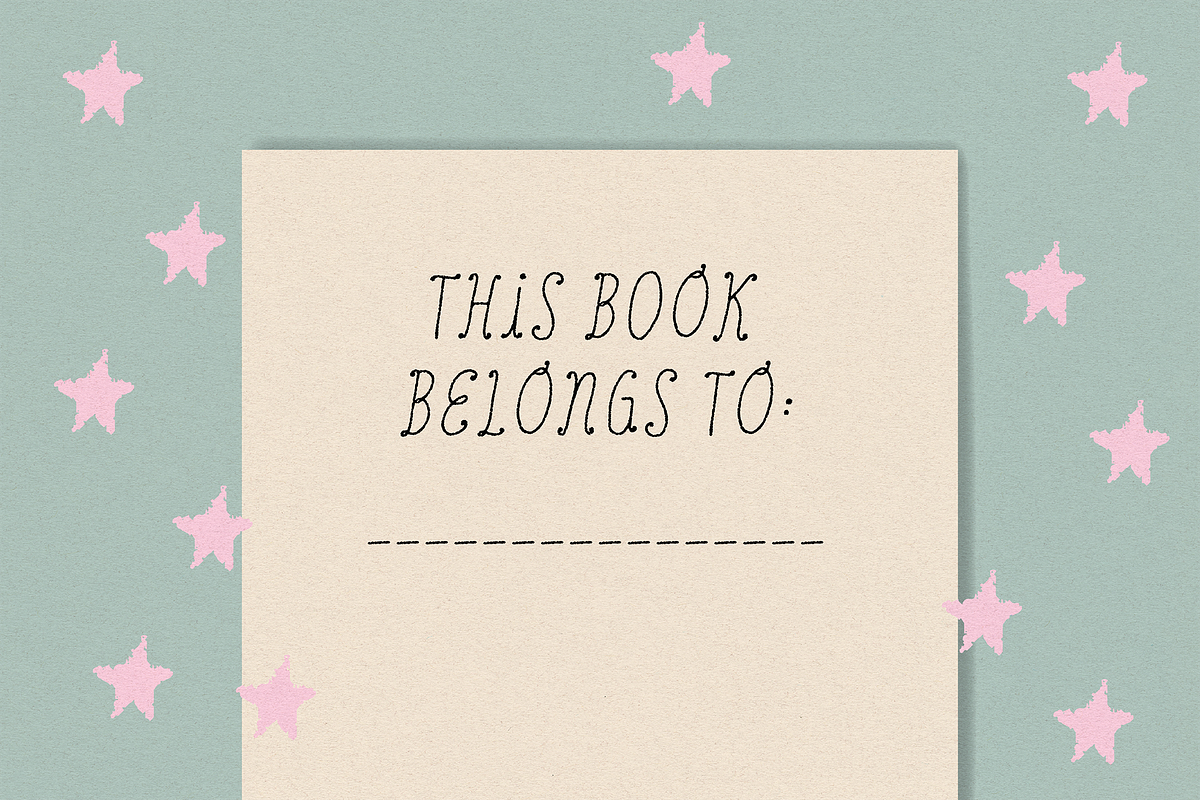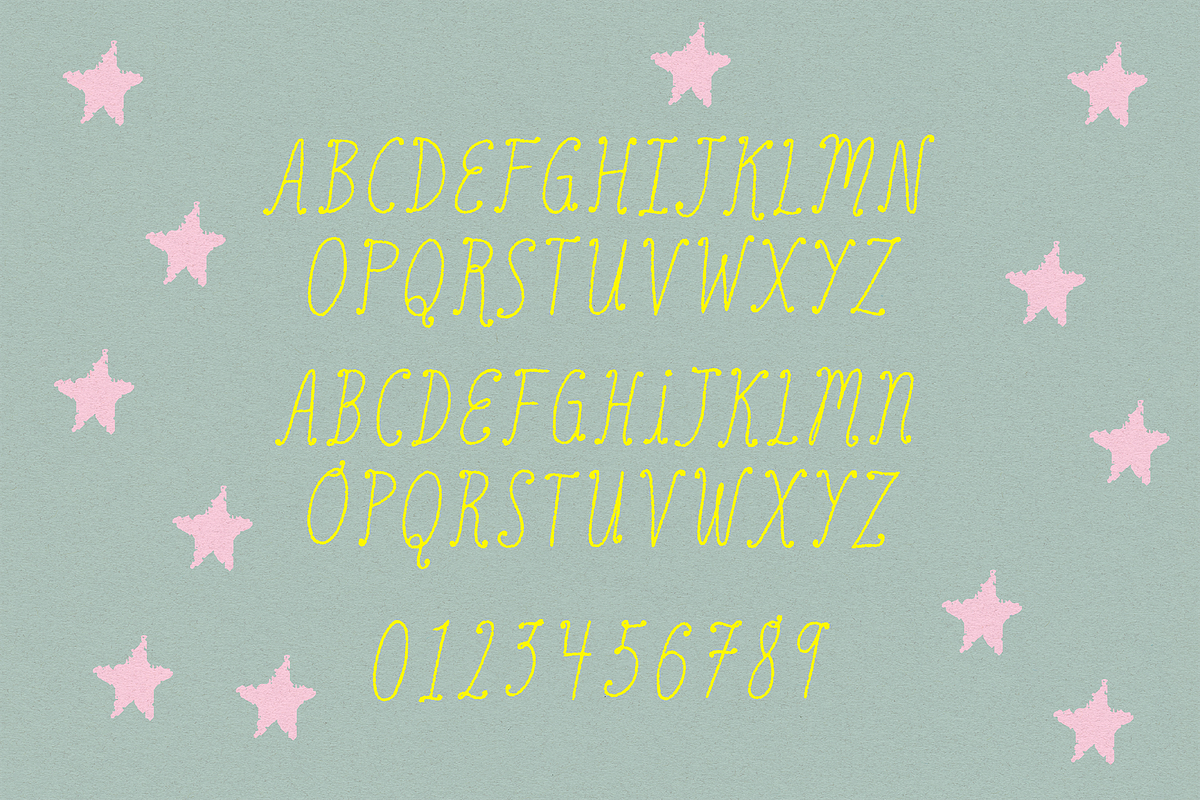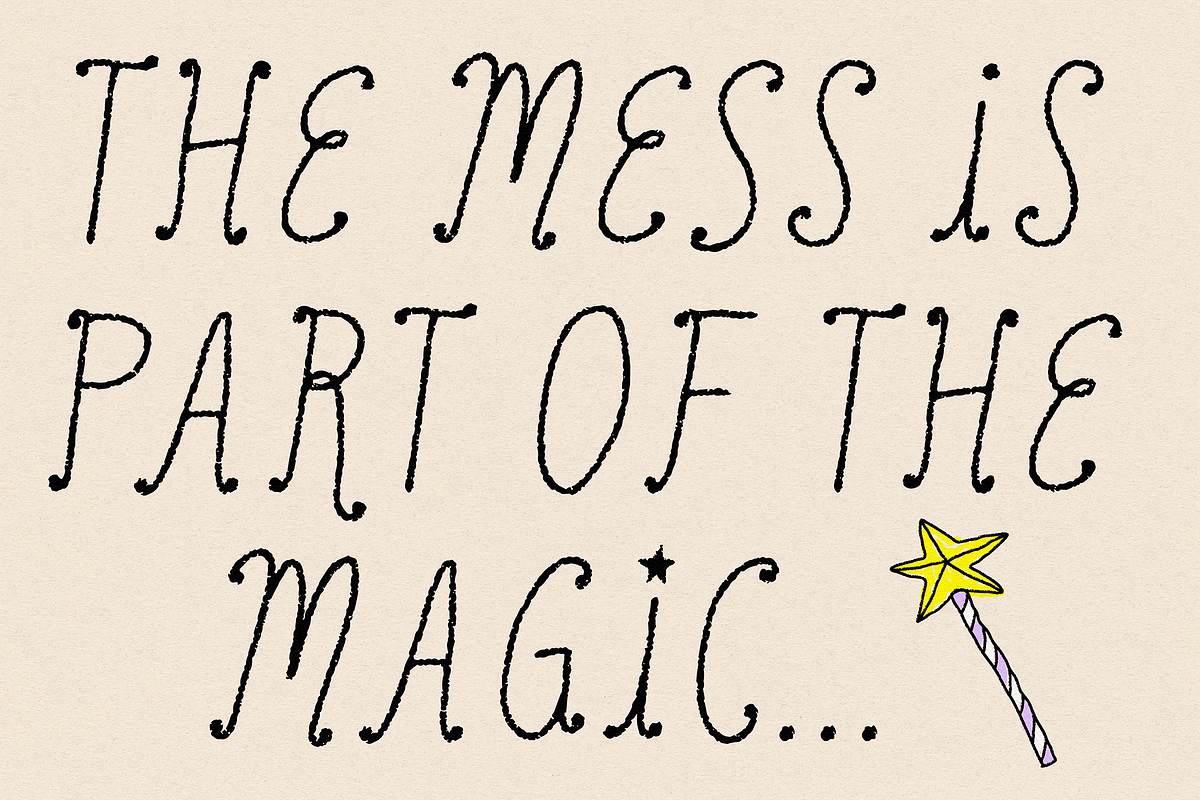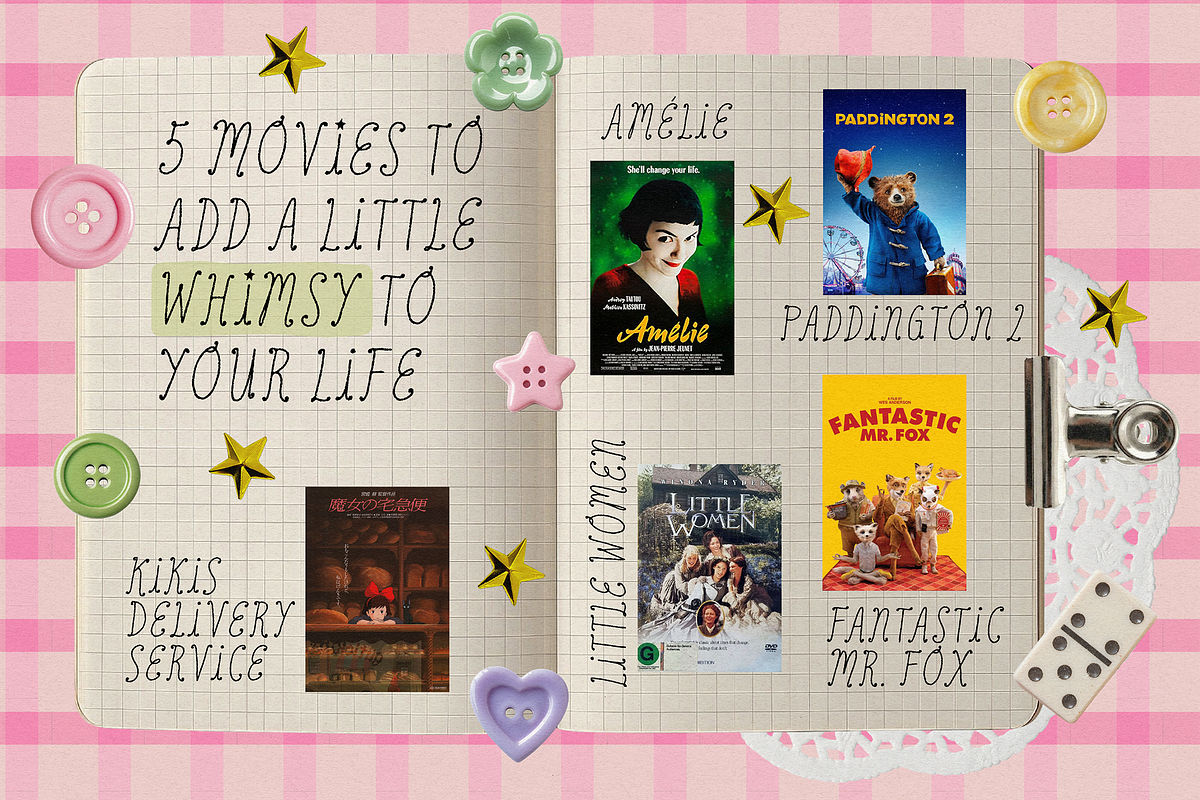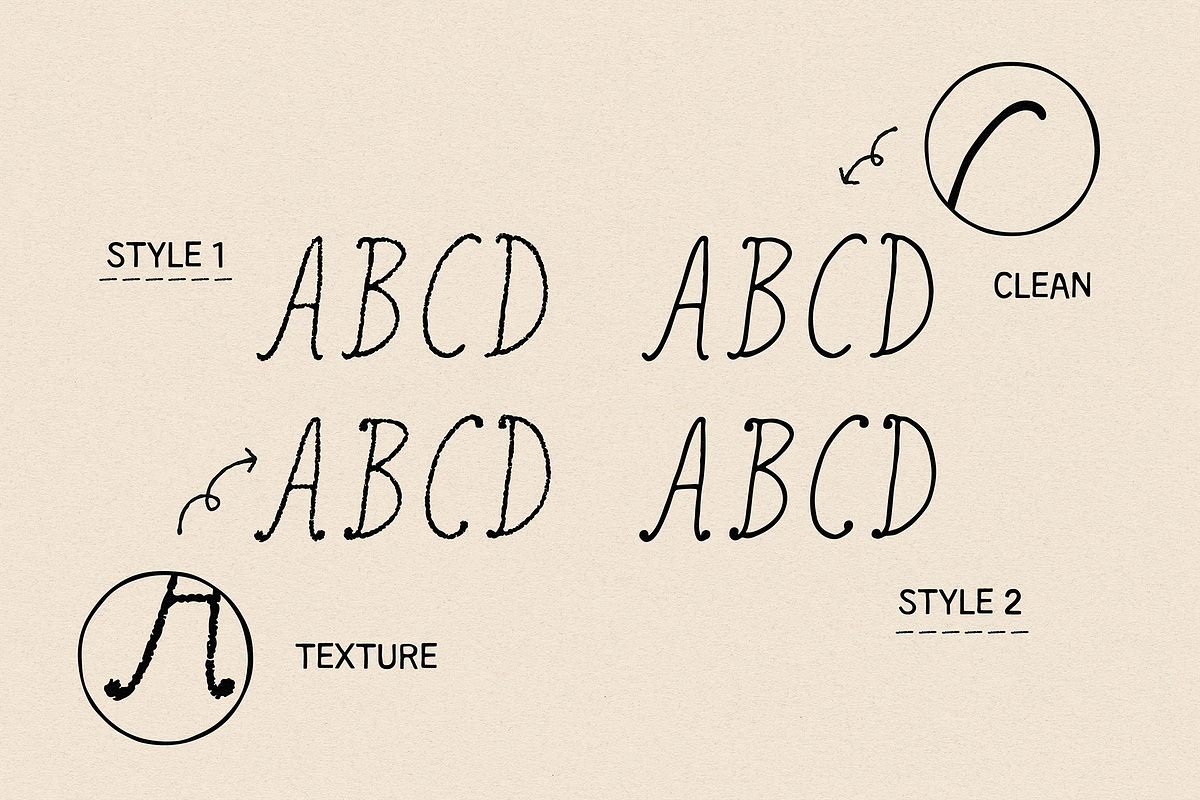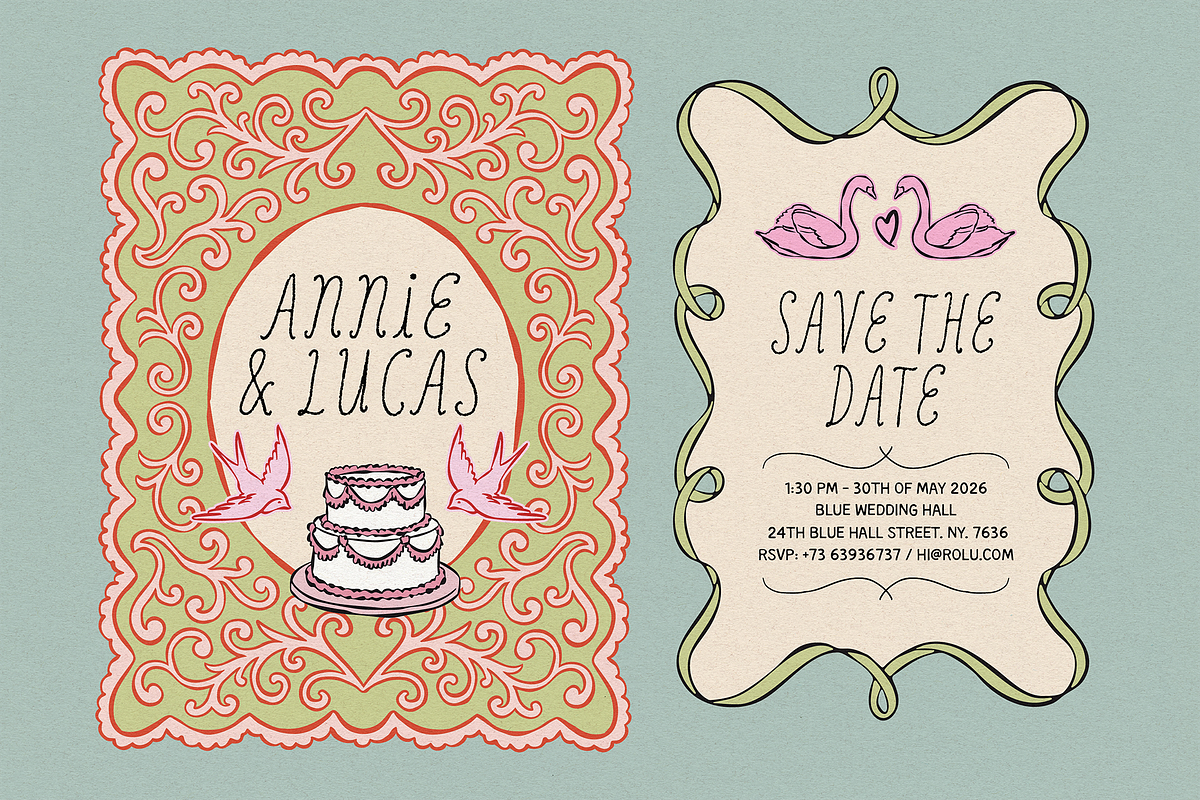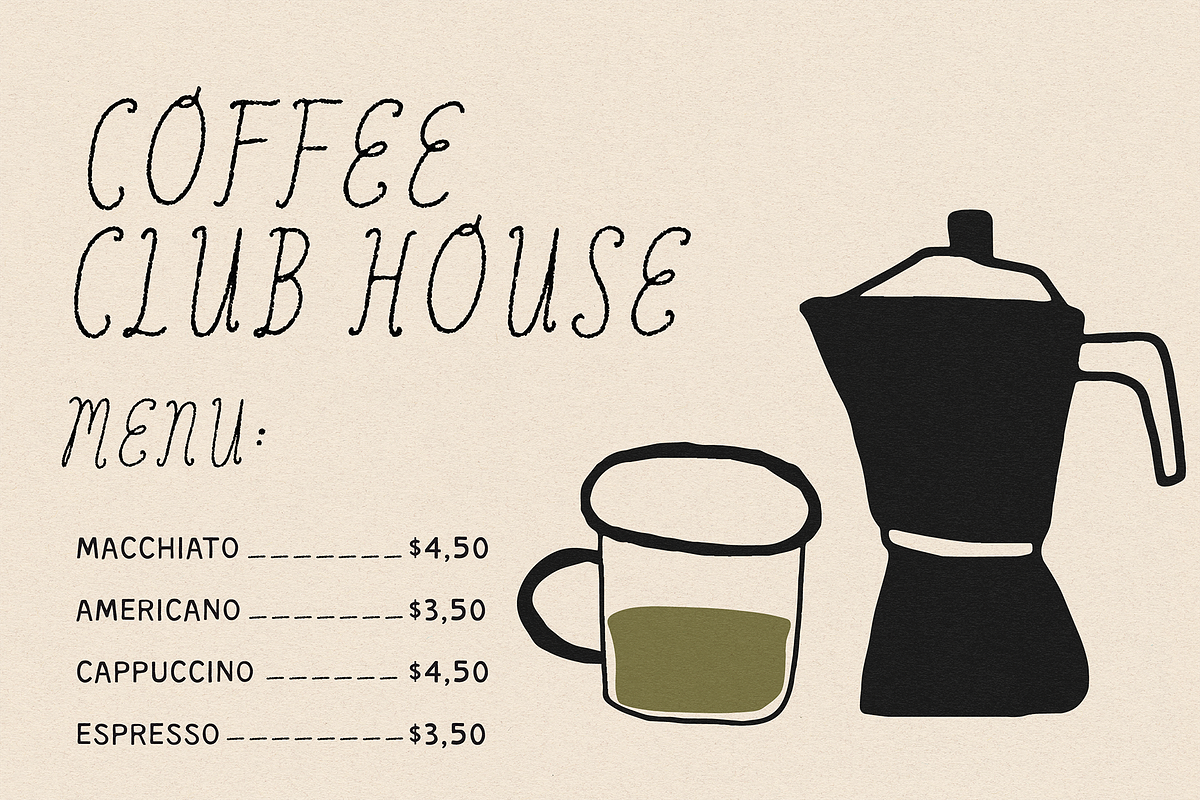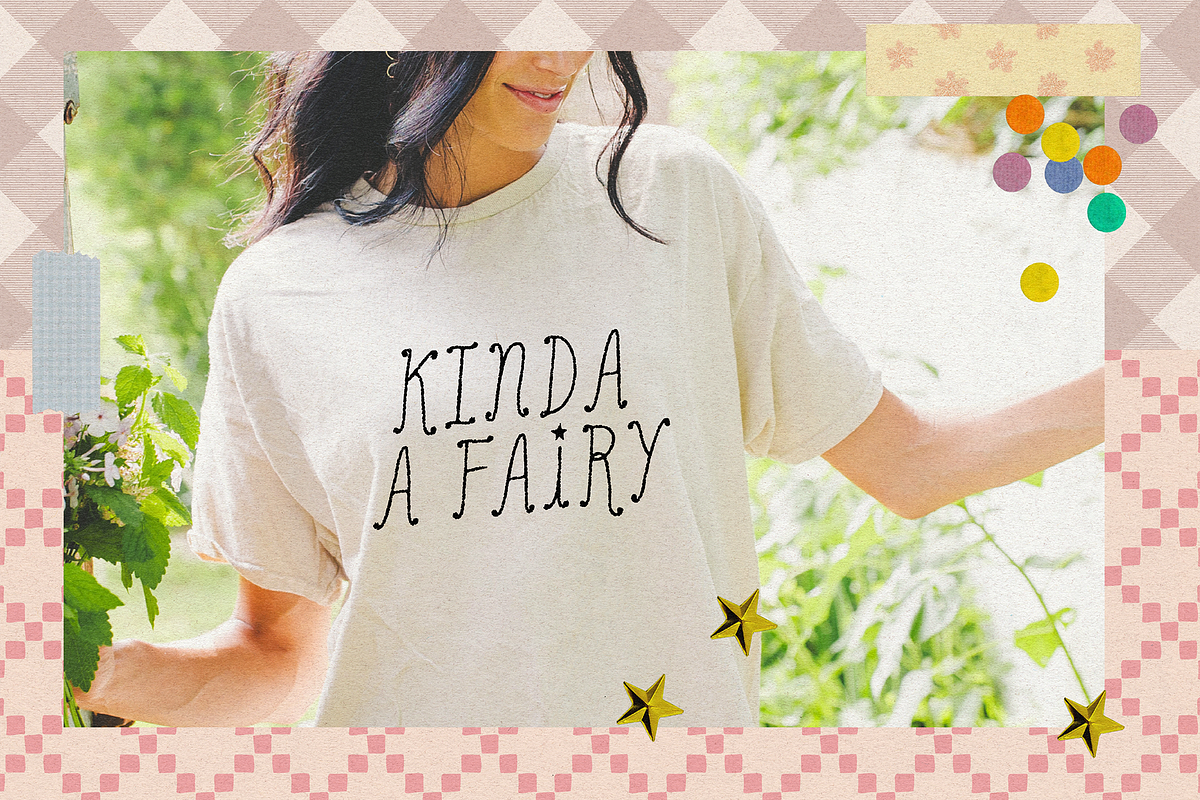
MESSY FAIRY CLUB | WHIMSY CURLY FONT
The Messy Fairy Club is a girly, magical hand-drawn font combo full of imperfect charm and playful personality. Designed with a messy, organic and slightly wonky style, this font embraces imperfection and magic.
With its tall, irregular shapes and soft fairy-like vibe, it’s perfect for creating eye-catching designs that feel unique, dreamy and cute.
✷ To get the extra characters just type:
- Logical not symbol ¬ – i with the star
- Back slash symbol \ – star